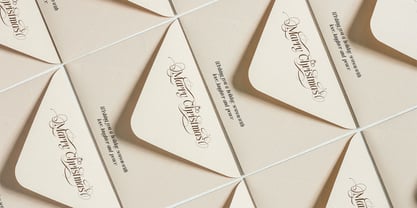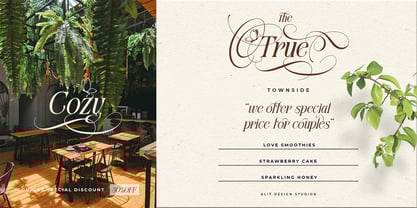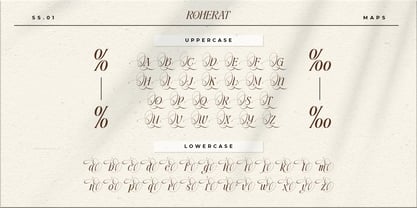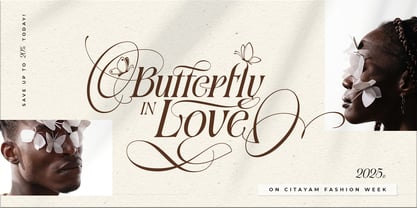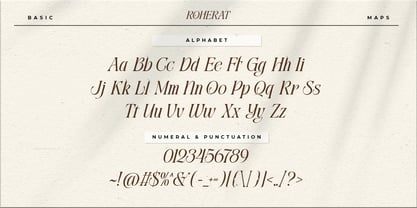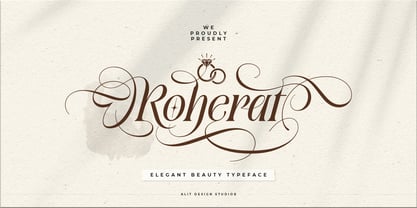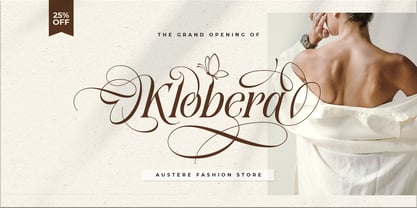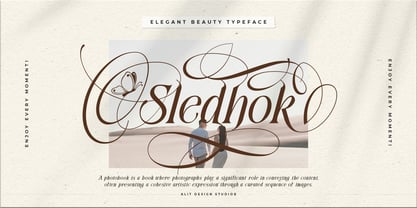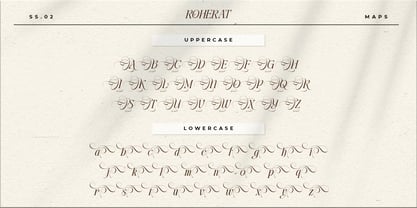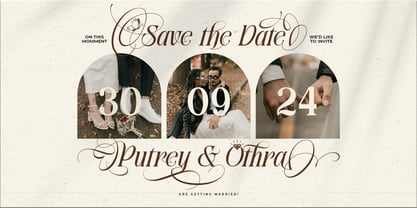
Roherat
Unveiling Roherat Typeface: A Symphony of Classic Elegance and Artistic Flair
Step into a world where timeless sophistication meets graceful expression with Roherat Typeface, a groundbreaking serif font meticulously designed to elevate your creative projects. Roherat is not merely a typeface; it's a meticulously crafted fusion, where the structured authority of traditional serifs seamlessly intertwines with the organic, fluid beauty of handwritten script-like swashes.
The Distinctive Fusion: Serif Meets Script At its heart, Roherat Typeface masterfully bridges two distinct typographic worlds. The foundational letterforms are rooted in a classic serif design, boasting clean lines, balanced proportions, and a refined presence that ensures clarity and legibility. These robust and elegant serifs provide a strong, dependable backbone, making Roherat ideal for substantial body text or prominent headlines where readability is paramount.
However, what truly sets Roherat apart are its mesmerizing, integrated script-like swashes. These aren't just ornamental additions; they are an intrinsic part of the character designs, flowing organically from the serifs and strokes. Imagine the delicate, expressive flourishes of a calligrapher's pen, now harmoniously integrated into the precision of a modern typeface. Each swash is designed to add a touch of personal artistry, creating a dynamic visual rhythm that dances across the page without ever overwhelming the core message. They evoke a sense of heritage, bespoke craftsmanship, and a soft, inviting warmth.
Intricate Details for Unrivaled Appeal:
• Graceful Swashes: Observe how the swashes extend and curve with an almost calligraphic precision, adding an air of fluidity and sophistication. These varying lengths and organic shapes provide a subtle yet captivating movement, making words feel handcrafted and truly special. They can be found at entry and exit points of letters, connecting them with an elegant sweep, or subtly embellishing ascenders and descenders.
• Balanced Proportions: Despite the elaborate swashes, Roherat maintains impeccable balance in its letterforms, ensuring legibility even at smaller sizes while commanding attention in larger displays. The contrast between thick and thin strokes is carefully calibrated for optimal visual harmony.
• Versatile Personality: Roherat beautifully balances formality with approachability. It can convey serious elegance for luxury brands, yet also impart a heartfelt, personal touch for intimate designs. This duality makes it an incredibly powerful tool in any designer's arsenal.
Elevate Your Designs Across Diverse Applications:
Roherat Typeface is your go-to solution for projects that demand a unique blend of classic elegance and personalized charm. Its versatility shines in:
• High-End Branding & Logos: Imbue your brand with an unmistakable sense of heritage, quality, and refined artistry. Ideal for fashion houses, artisanal products, bespoke services, and luxury goods.
• Exquisite Wedding & Event Stationery: From invitations and RSVP cards to menus and place cards, Roherat adds an unparalleled touch of romance, sophistication, and custom craftsmanship, making every detail memorable.
• Editorial Layouts & Publishing: Bring a distinctive character to magazine spreads, book covers, chapter titles, and sophisticated literary works, capturing readers' attention with an inviting and elegant aesthetic.
• Product Packaging & Labels: Elevate perceived value and appeal on packaging for gourmet foods, wines, cosmetics, and handcrafted items, signaling premium quality and attention to detail.
• Web & Digital Presence: Create captivating website headers, banner ads, and social media graphics that stand out with a unique blend of classic appeal and modern flair.
• Certificates & Awards: Lend an air of prestige and authenticity to important documents and recognition.
Roherat Typeface isn't just a collection of characters; it's a design experience. It invites viewers to linger, appreciating the intricate dance between tradition and innovation. Choose Roherat to imbue your creations with an unforgettable sense of beauty, sophistication, and a truly unique artistic signature. Let your typography speak volumes with the timeless grace and personalized charm of Roherat.